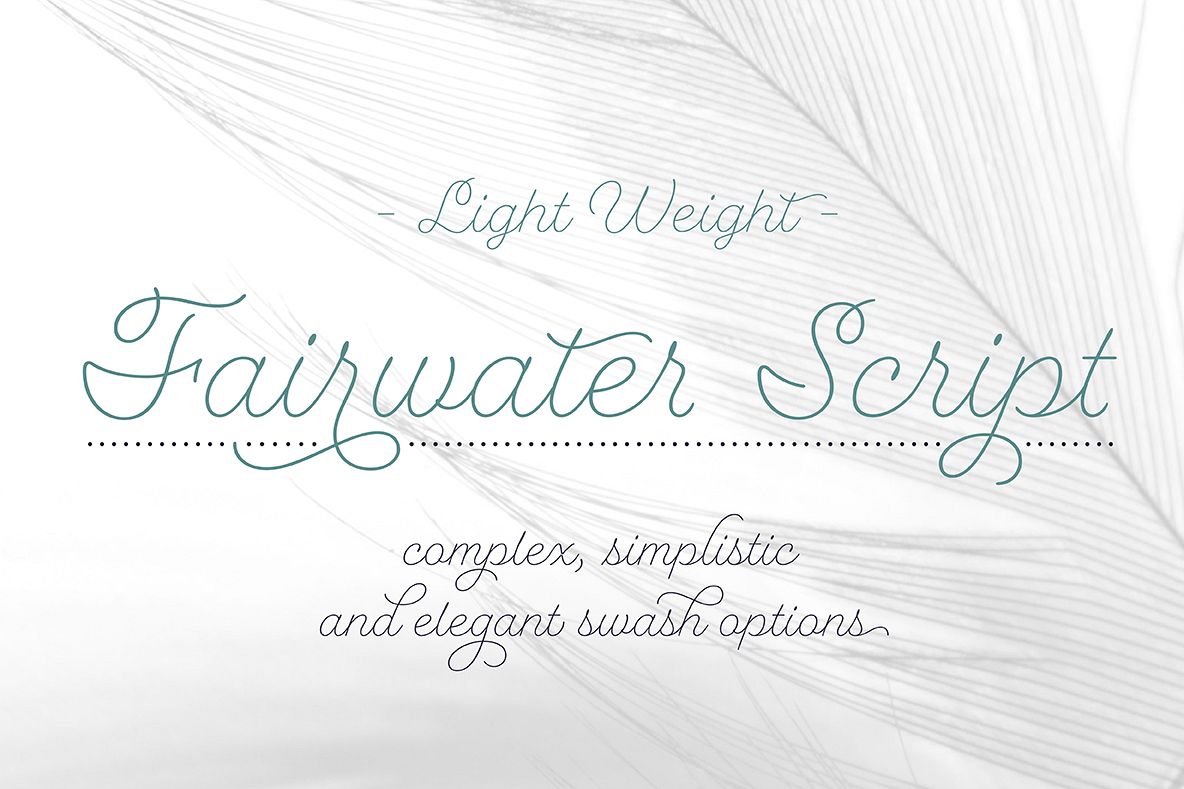
Fairwater’s aesthetic derives from the cursive handwriting styles
popularized in the early to mid 1900s. Friendly, monoline, and casual.
As with many of my fonts, I couldn’t resist adding a plethora of 465
swashes and alternates that include ending forms on all letters, 34
beginning and isolated letters, an unconnected version (Titling feature)
and contextual alternates.